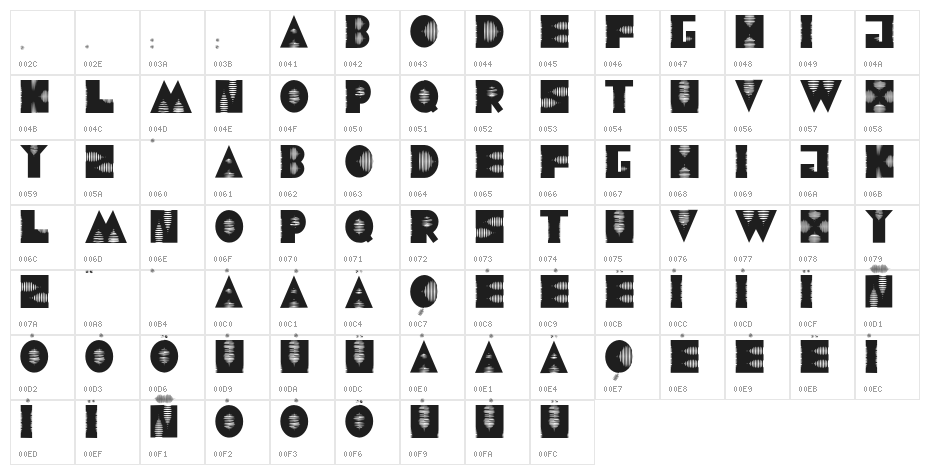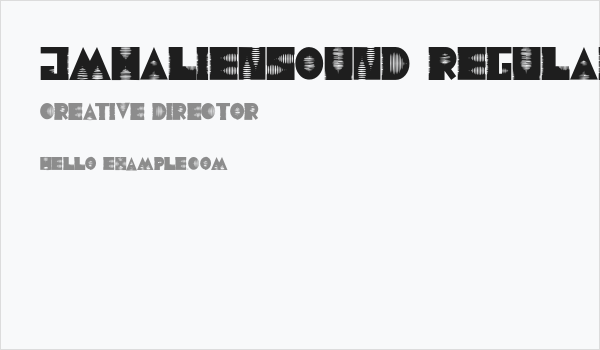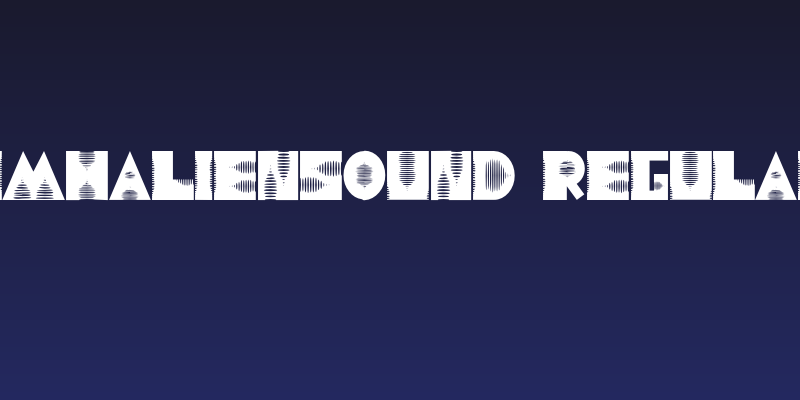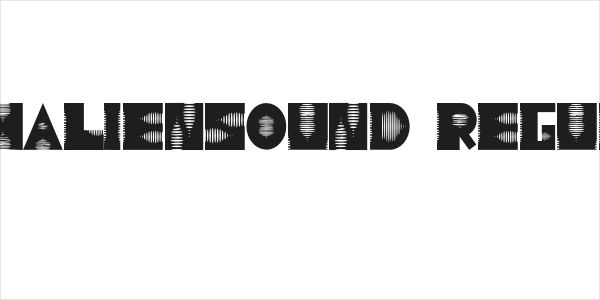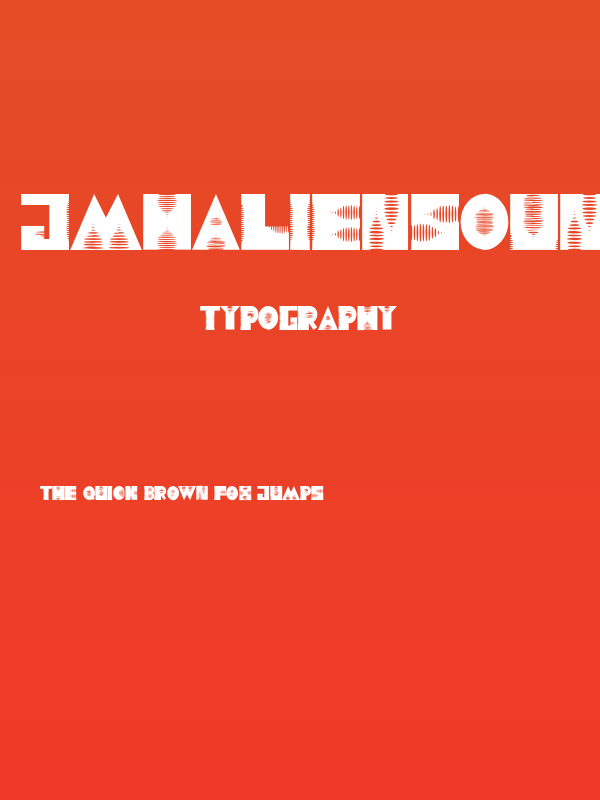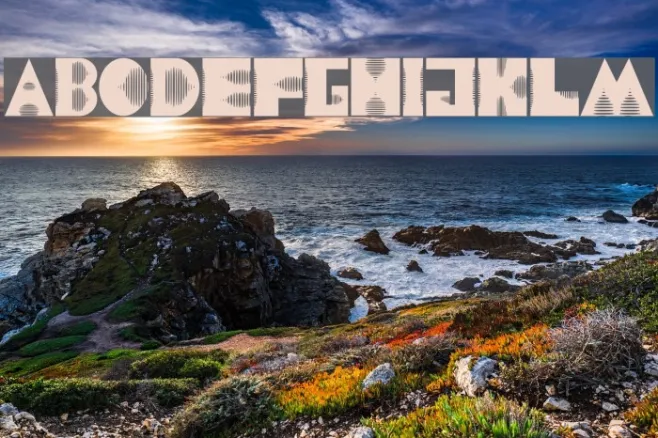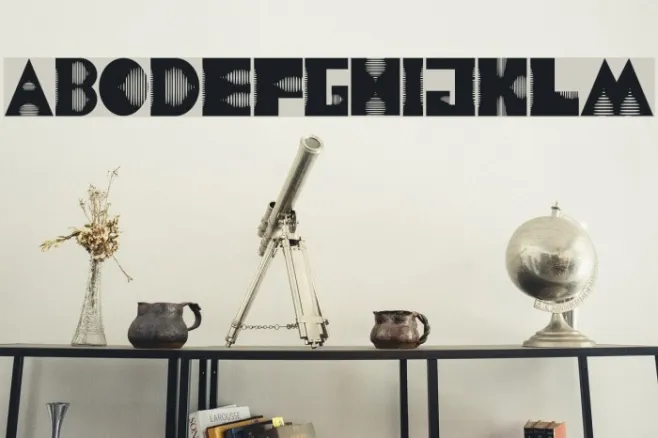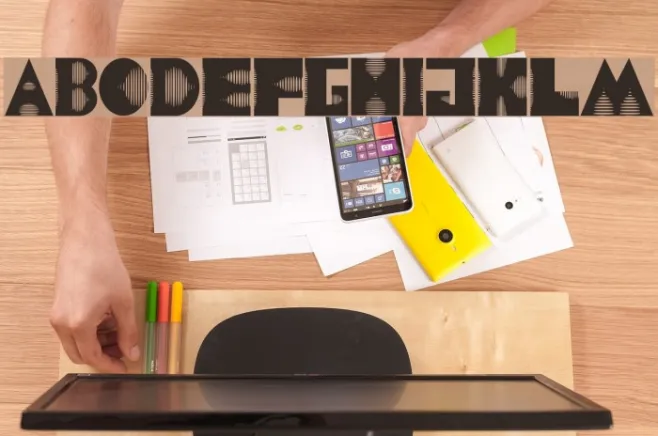
JMHAlienSound-Regular Font
JMHAlienSound-Regular Description
This font features a bold and futuristic design with a unique pattern of horizontal lines cutting through each character, creating a sense of movement and depth. The geometric shapes are sharp and angular, giving it a modern and edgy appearance. The uppercase letters are particularly striking, with a strong presence that demands attention. The font's style is reminiscent of sci-fi themes, making it ideal for projects that require a distinctive and unconventional look. Its boldness and intricate detailing make it stand out, while the consistent line pattern across characters provides a cohesive visual experience.
| Overall Style | Futuristic, Edgy |
| Proposed Projects | Ideal for sci-fi themed posters, video game titles, futuristic branding, and tech-related designs. |